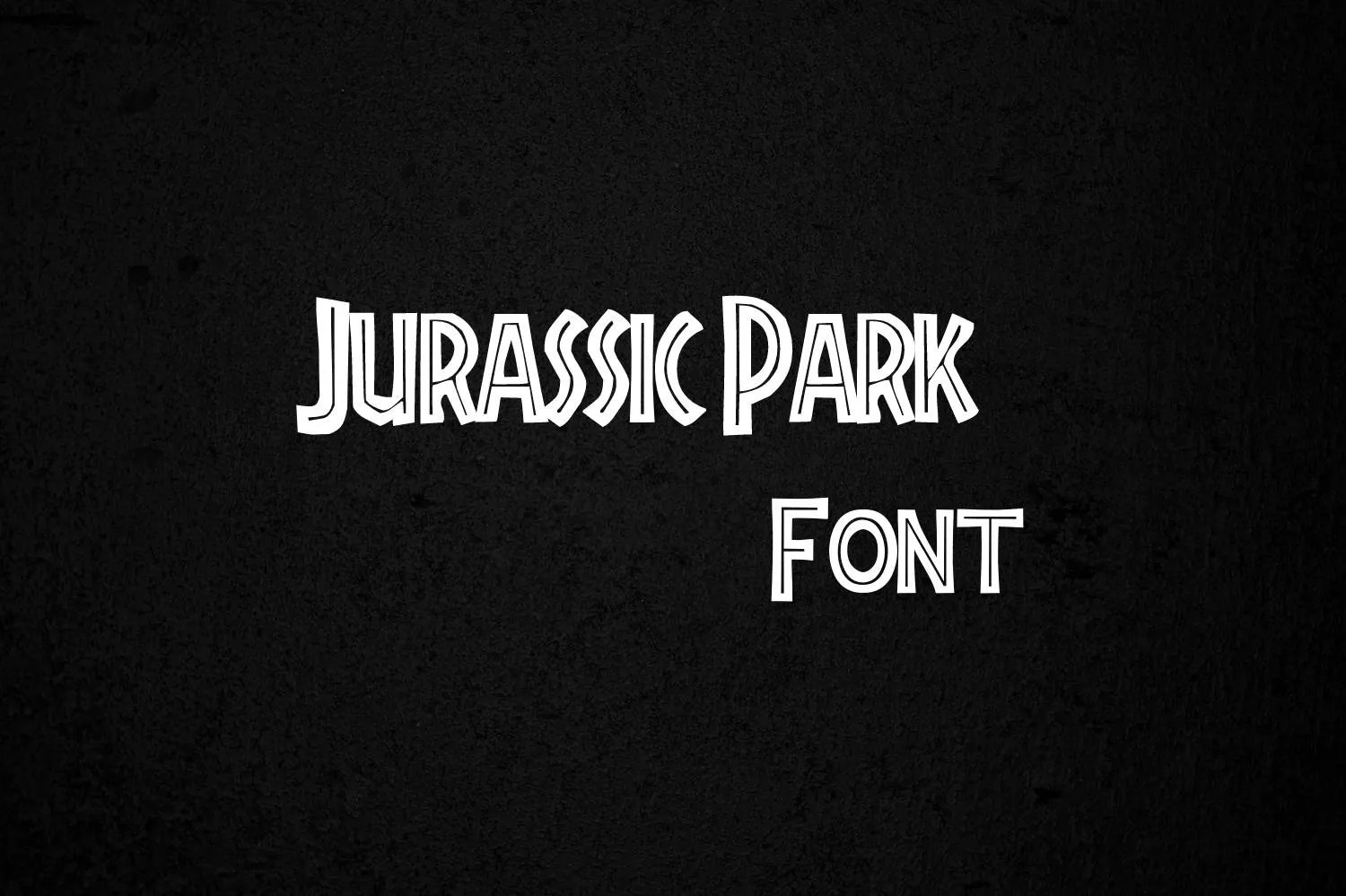
What Is The Font For Jurassic Park . The jurassic park font has been downloaded 711,274 times. Use the text generator below to convert your text into graphics online with jurassic park font, you can. Free download of jurassic park font. Create text graphics with jurassic park font. Click now to create a custom image with your own words that you can download. Every font is free to download! The jurassic park font used in the logo is called neuland inline, which was originally designed by rudolf koch for klingspor foundry in 1923. The time is now 13:28. Click to find the best 8 free fonts in the jurassic park style. Ziehn) to represent letters used in its famous dinosaur film series. Archive of freely downloadable fonts. Looking for jurassic park fonts? Jurassic park font is an elegant decorative font with sharp and smooth characters, boasting its sharp lines and strokes to achieve.
The jurassic park font used in the logo is called neuland inline, which was originally designed by rudolf koch for klingspor foundry in 1923. Free download of jurassic park font. Click to find the best 8 free fonts in the jurassic park style. Archive of freely downloadable fonts. Click now to create a custom image with your own words that you can download. Create text graphics with jurassic park font. Jurassic park font is an elegant decorative font with sharp and smooth characters, boasting its sharp lines and strokes to achieve. Looking for jurassic park fonts? Ziehn) to represent letters used in its famous dinosaur film series. Every font is free to download!
What Is The Font For Jurassic Park Jurassic park font is an elegant decorative font with sharp and smooth characters, boasting its sharp lines and strokes to achieve. The time is now 13:28. Free download of jurassic park font. Ziehn) to represent letters used in its famous dinosaur film series. Click now to create a custom image with your own words that you can download. Click to find the best 8 free fonts in the jurassic park style. The jurassic park font has been downloaded 711,274 times. The jurassic park font used in the logo is called neuland inline, which was originally designed by rudolf koch for klingspor foundry in 1923. Create text graphics with jurassic park font. Archive of freely downloadable fonts. Looking for jurassic park fonts? Jurassic park font is an elegant decorative font with sharp and smooth characters, boasting its sharp lines and strokes to achieve. Use the text generator below to convert your text into graphics online with jurassic park font, you can. Every font is free to download!